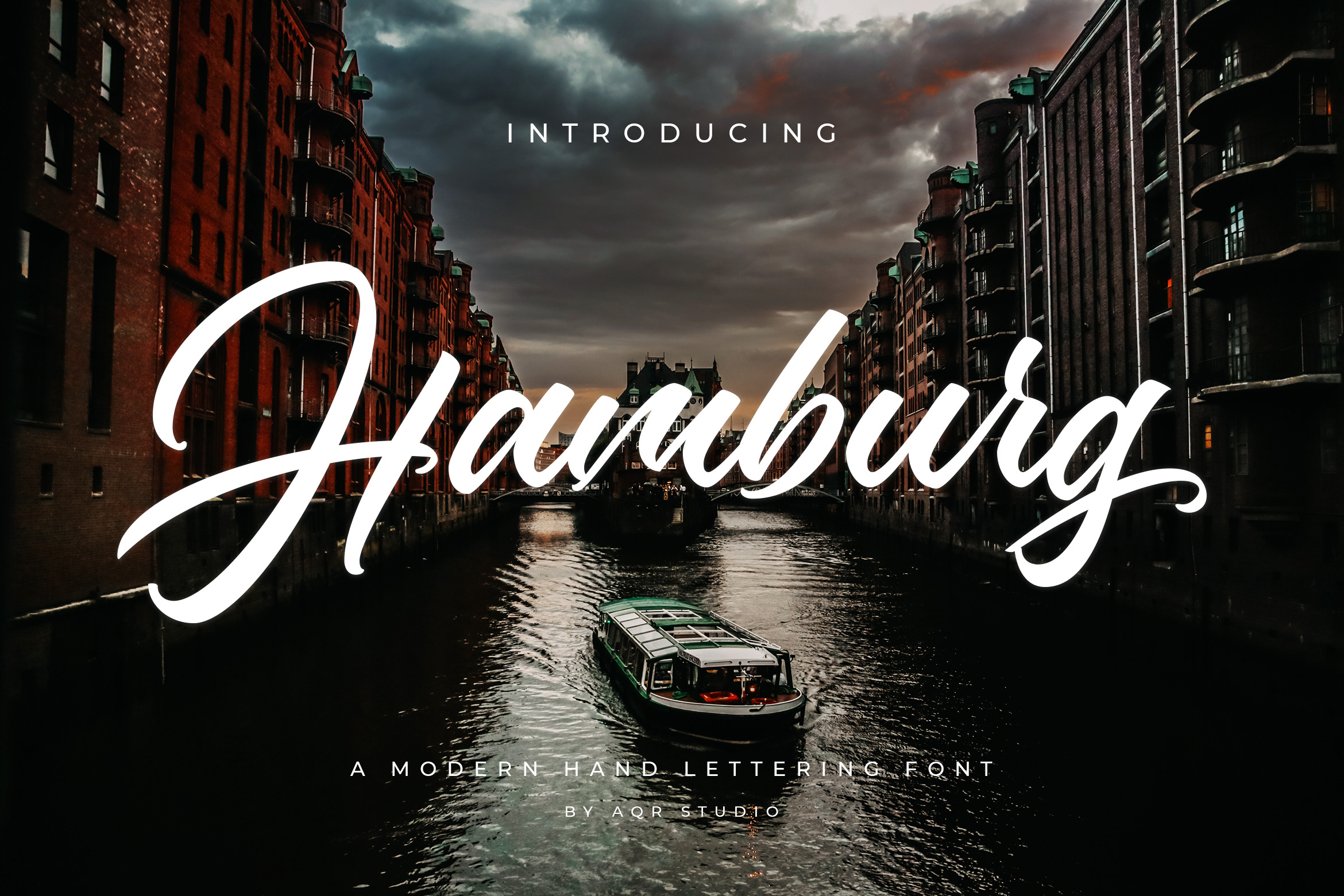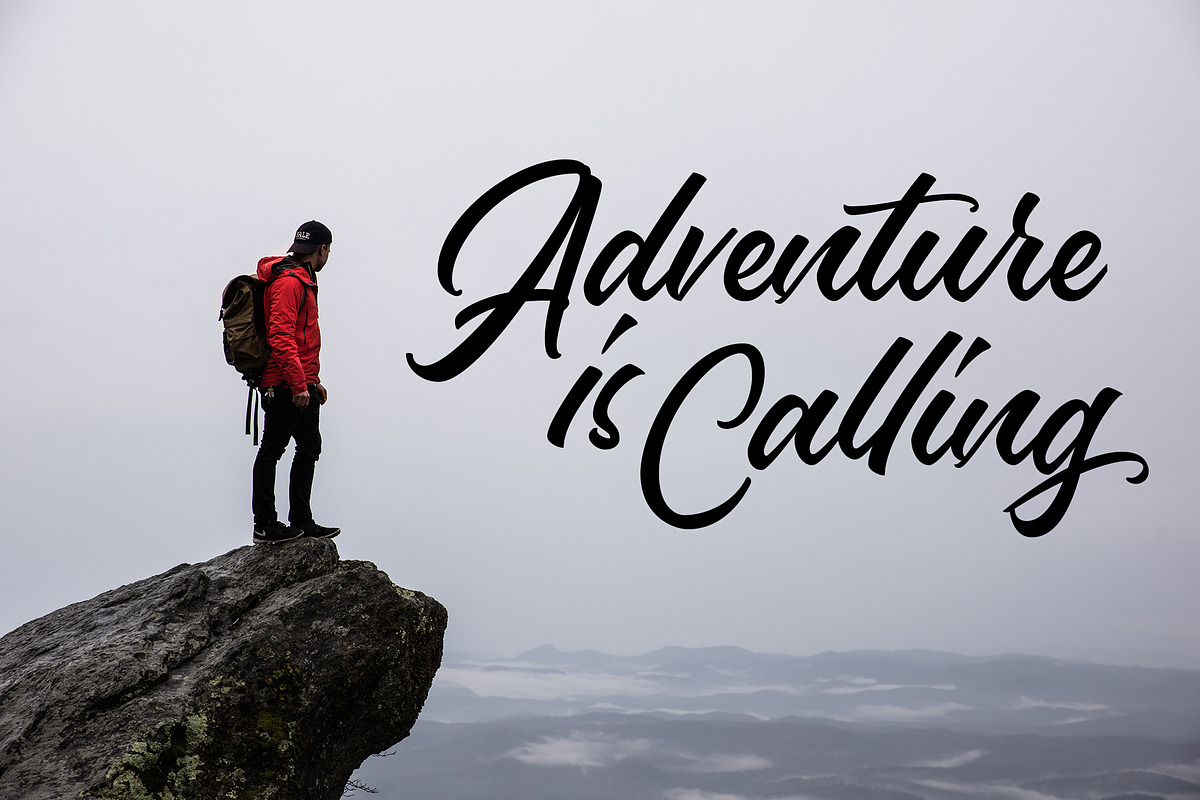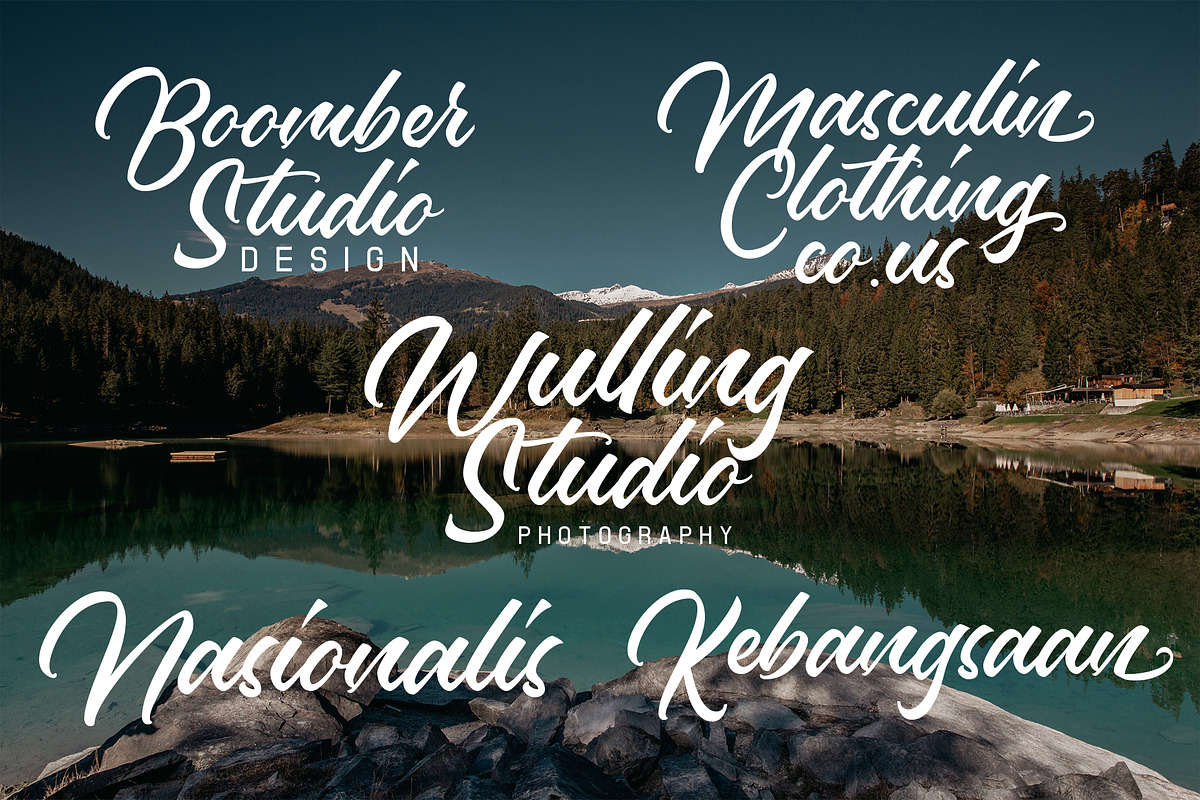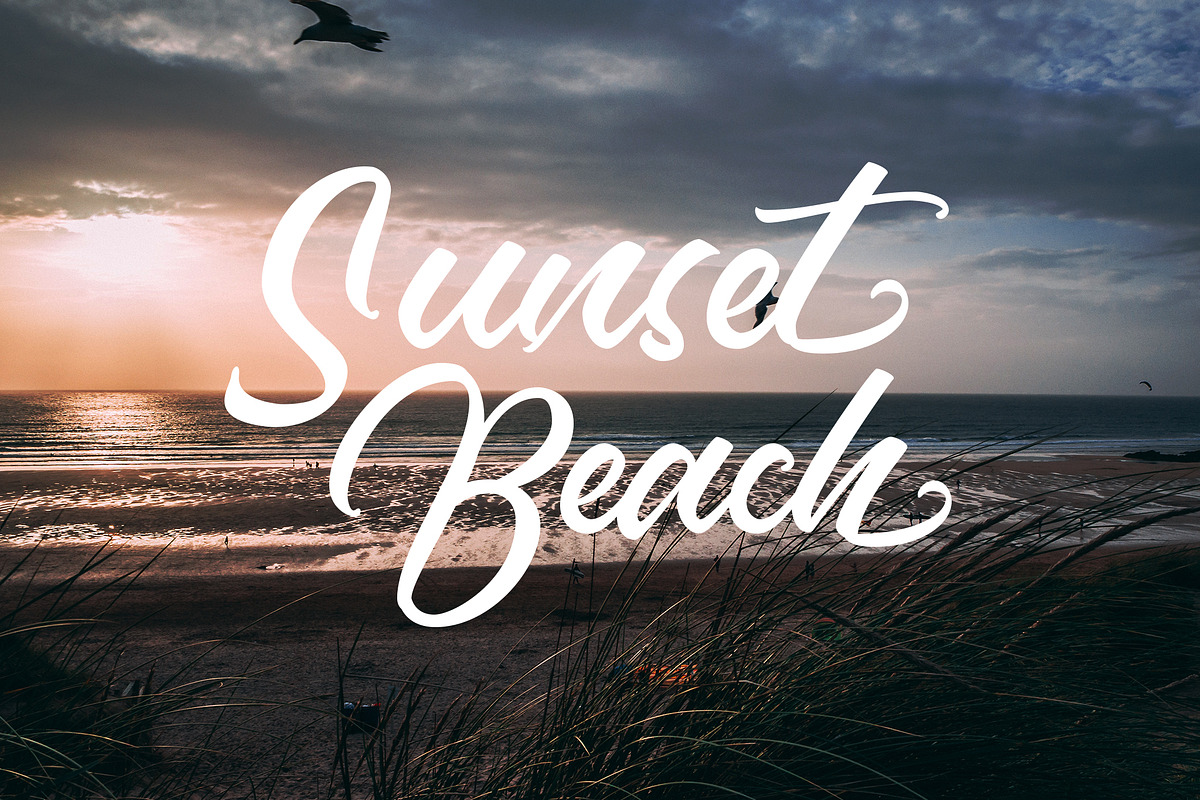
Hamburg Font
Hamburg Font that contains a lowercase, uppercase, symbol, and also support multi-language. There’s a lot of ligature in this font. Hamburg Font also comes with ligatures, stylistic alternates and many more. this font suitable for fashion, branding, catalog and other design what you want.